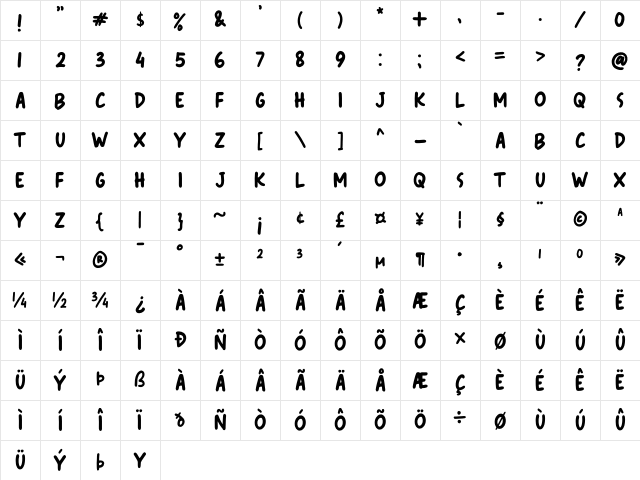
Cream Yoghurt Regular
Designer: Mozarella.std
Complete Cream Yoghurt Regular glyph index. Displaying only characters natively supported by Cream Yoghurt Regular font.
Design Context for Cream Yoghurt
Cream Yoghurt is a composed and adaptable typeface that performs quietly and consistently across a wide range of design contexts.